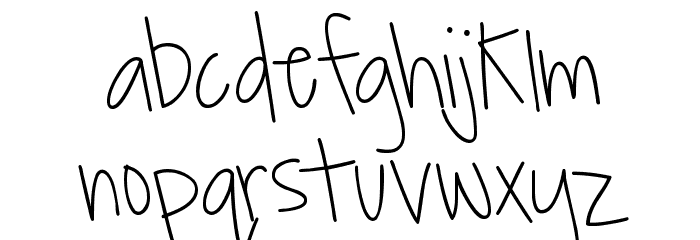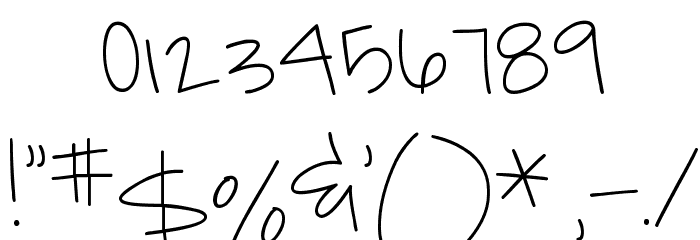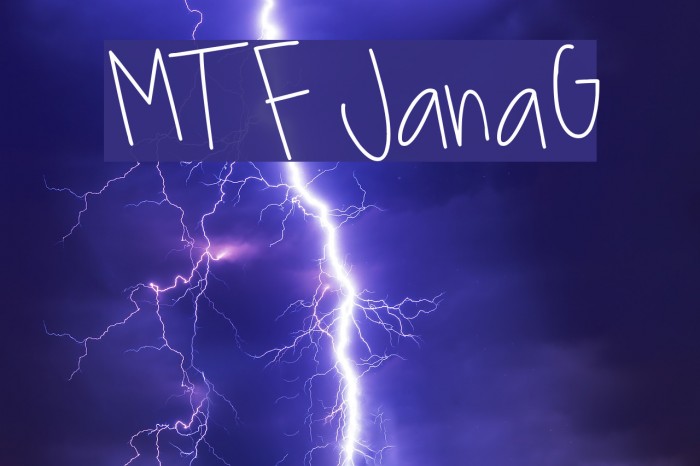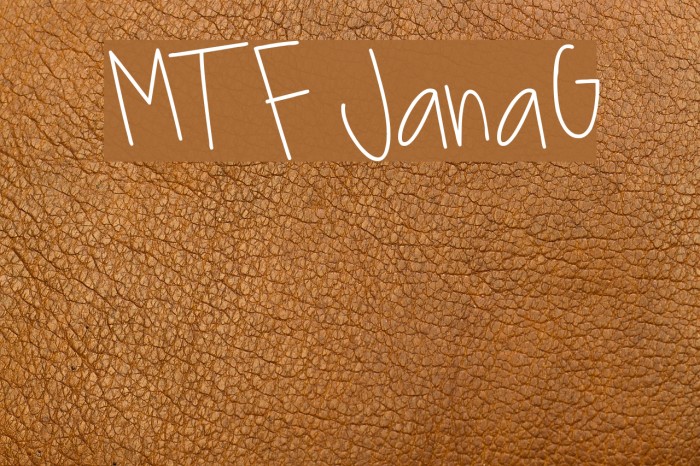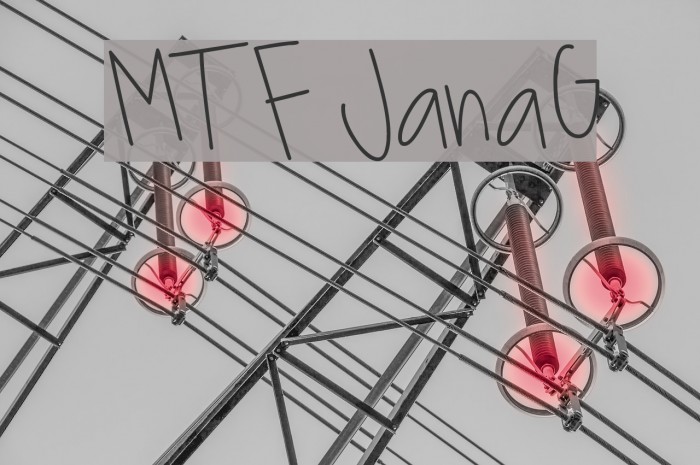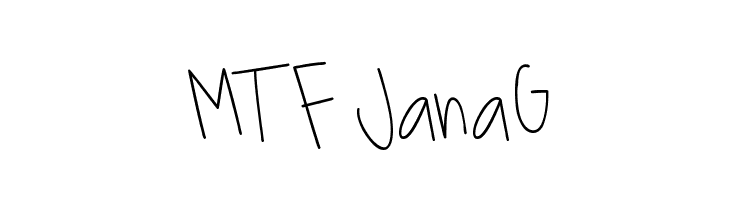
MTF JanaG Font
This font features a playful and casual handwritten style, characterized by its loose, flowing strokes and slightly irregular letterforms. The uppercase and lowercase letters maintain a consistent style, with a slight slant that adds to the informal feel. The numerals and special characters are designed to match the overall aesthetic, making them suitable for creative and informal applications. The font's organic appearance is perfect for projects that require a personal touch, such as greeting cards, invitations, or social media graphics. Its legibility and charm make it versatile for various design needs.
A playful, casual handwritten font with loose, flowing strokes.
- Proposed Projects: Greeting cards, invitations, social media graphics, personal branding.
- Category: Handwritten
- Overall Style: Casual, Playful
- Use Case: Headlines, Informal text, Creative projects